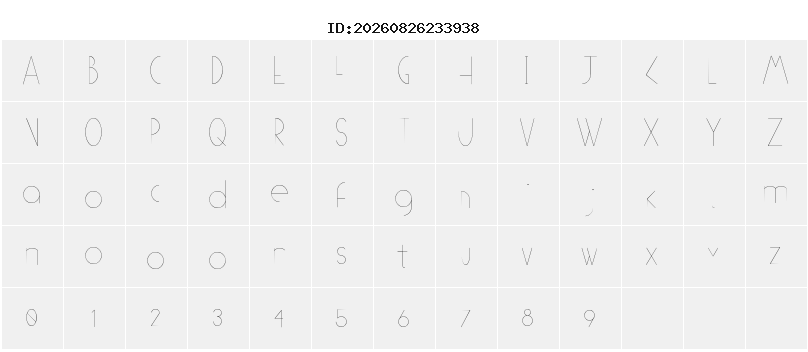
• Font Name: (((O))) Basic
• Full Font Name: (((O))) Basic
About (((O))) Basic.ttf
(((O))) Basic.ttf is a modern, elegant sans-serif font designed for ultimate readability and visual harmony. Perfect for branding, headlines, web design, and print materials.